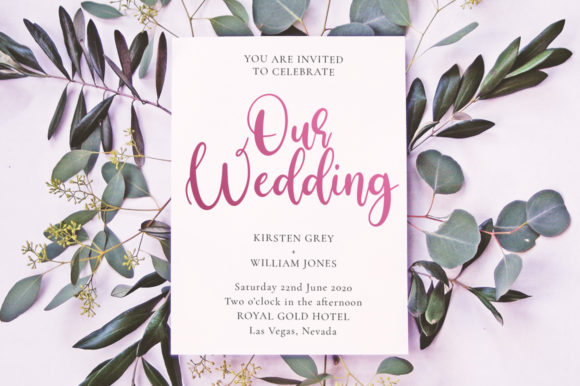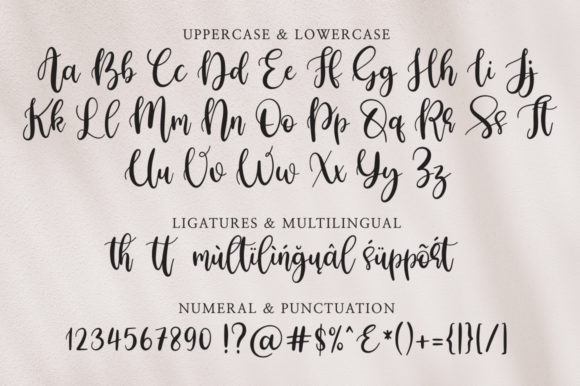
Introduction to Love Balqist Font Font
Fonts play a crucial role in design, and the Love Balqist Font font is a typeface that brings both character and versatility to any project. Whether you’re working on a branding project, a website, or a print design, the Love Balqist Font font offers a unique style that can elevate your work.
Love Balqist is a modern paint brush calligraphy font with sophisticated flows.
This font is perfect for logos, wedding stationery, cards, gift designs, photography, watermark, product packaging and quotes .
Key Features of Love Balqist Font Font
Why Choose Love Balqist Font Font?
The Love Balqist Font font is more than just a typeface – it’s a design tool that helps you communicate your message with style and clarity. Its unique character set and versatile design make it suitable for a wide range of applications, from elegant invitations to bold headlines.
With its carefully crafted letterforms and balanced proportions, the Love Balqist Font font ensures readability and visual appeal across all mediums.
What makes Love Balqist Font font special?
The Love Balqist Font font stands out with its unique design, exceptional readability, and versatility across various design applications.